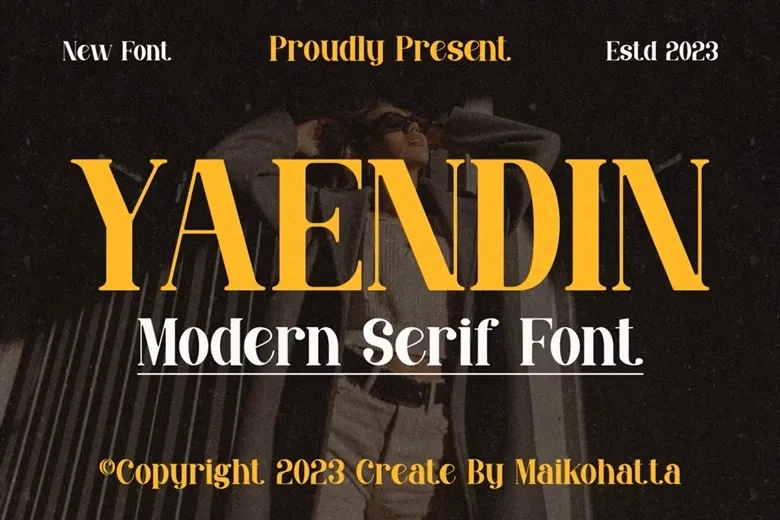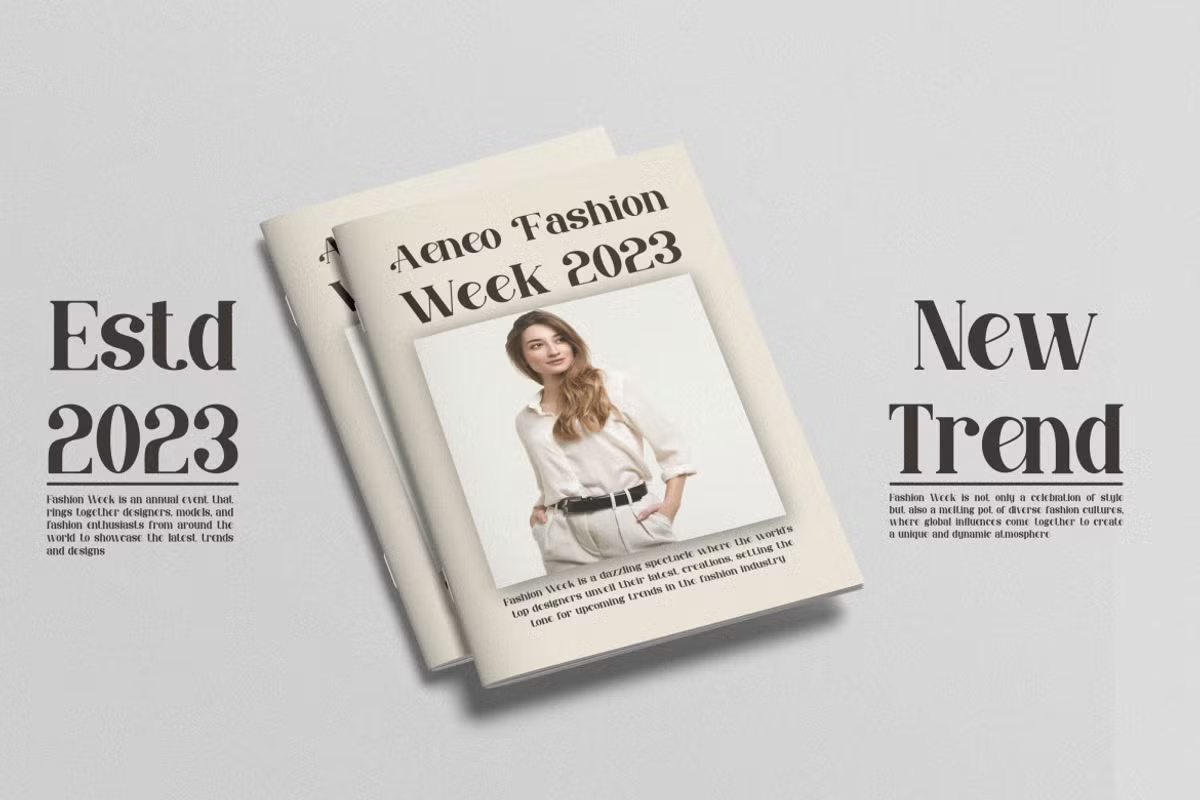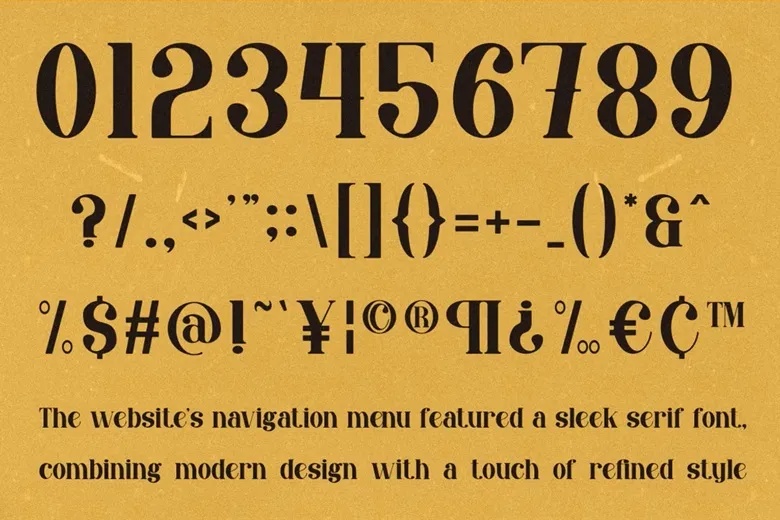
Yaendin is a display serif from 2023, credited in the specimen to MaikoHatta. The letters are bold with clear contrast and flared serifs, and the numbers have an old fashioned charm. The Aenco Fashion Week magazine mockup shows its editorial side.
It has capitals, lowercase, numbers and a wide range of symbols and currency signs. It works best in headlines and short lines, set in strong colours like the mustard yellow in the preview. The flared serifs need room, so give it a little extra line spacing in multi line titles.
Best uses for Yaendin
- Fashion magazine covers
- Posters and flyers
- Brand logos
- Book covers
- Website headers
Pair Yaendin with a clean sans. Inter keeps body text readable. Montserrat works for subheads. For a serif partner, try Lora.
Yaendin Serif Font